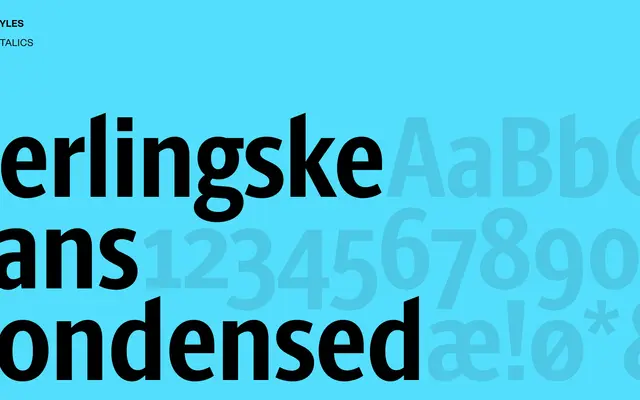
Berlingske Sans Condensed
Berlingske Sans Condensed specimen from Playtype
A condensed grotesque sans from Playtype, drawn for editorial and headline use with a distinctly Scandinavian character.
Part of the wider Berlingske type system developed by Playtype, the condensed cut is built for high-impact headline settings where space is tight. The name references Berlingske, one of Denmark's oldest newspapers, suggesting a design rooted in editorial practicality. Suits display-scale use in print and digital editorial contexts.
The name and page context strongly suggest a condensed grotesque sans-serif, likely part of a broader Berlingske Sans family with a newspaper or editorial heritage.